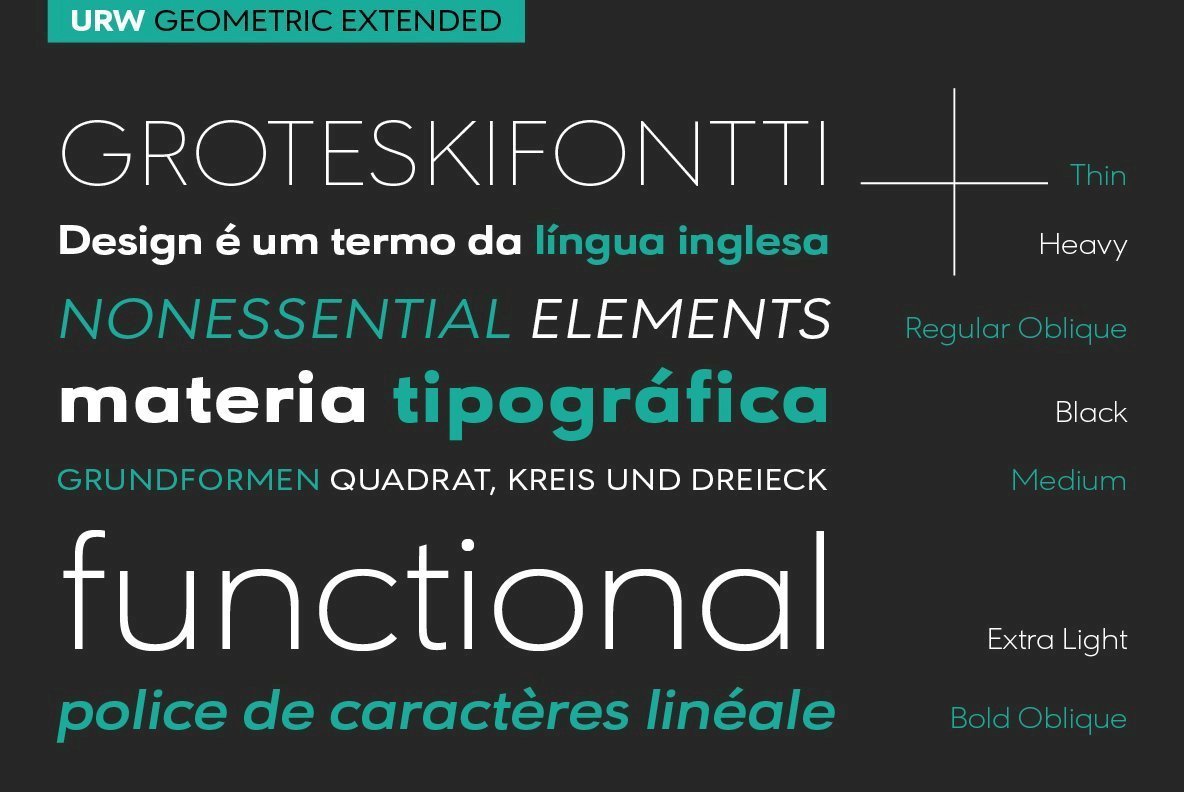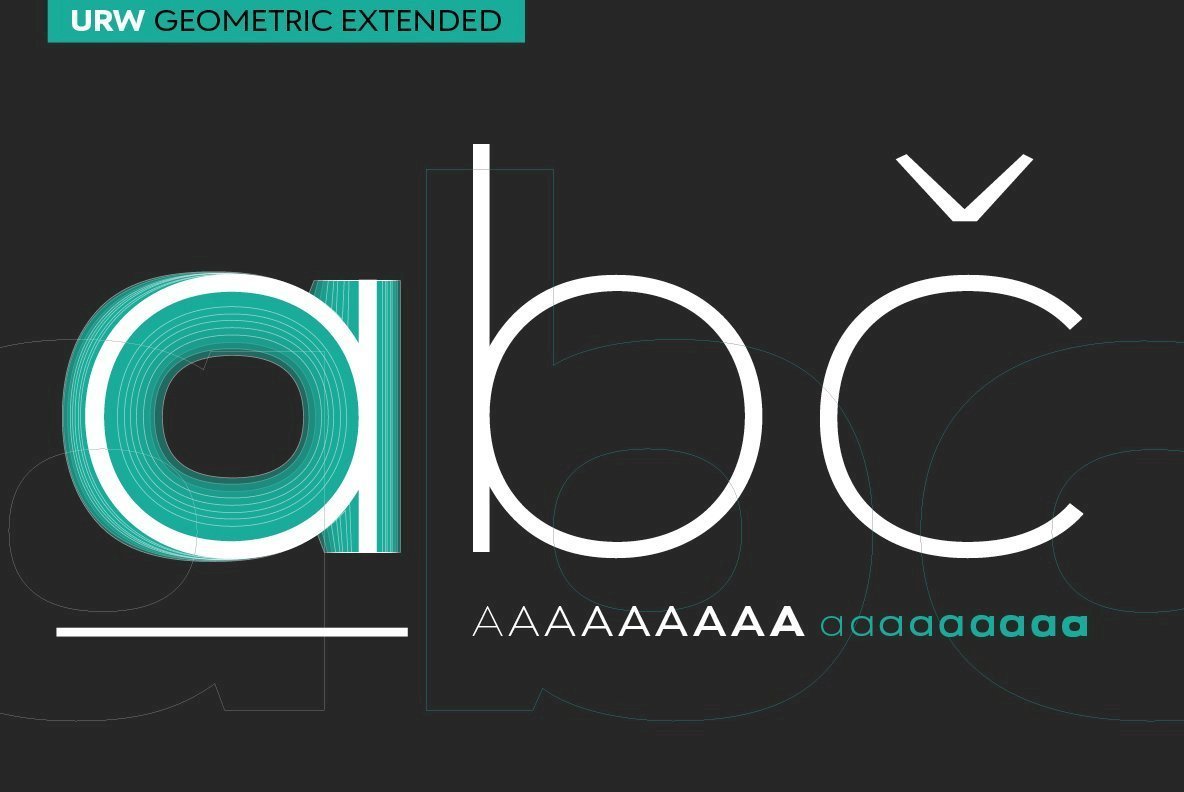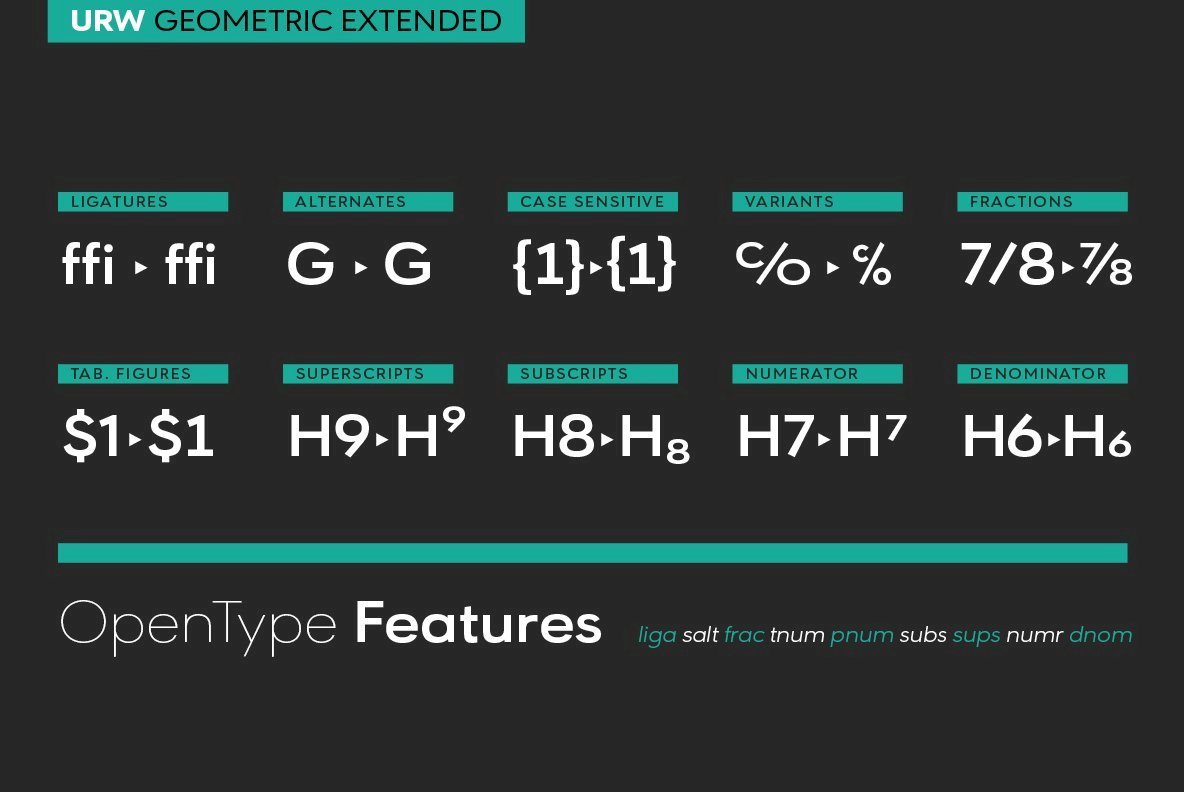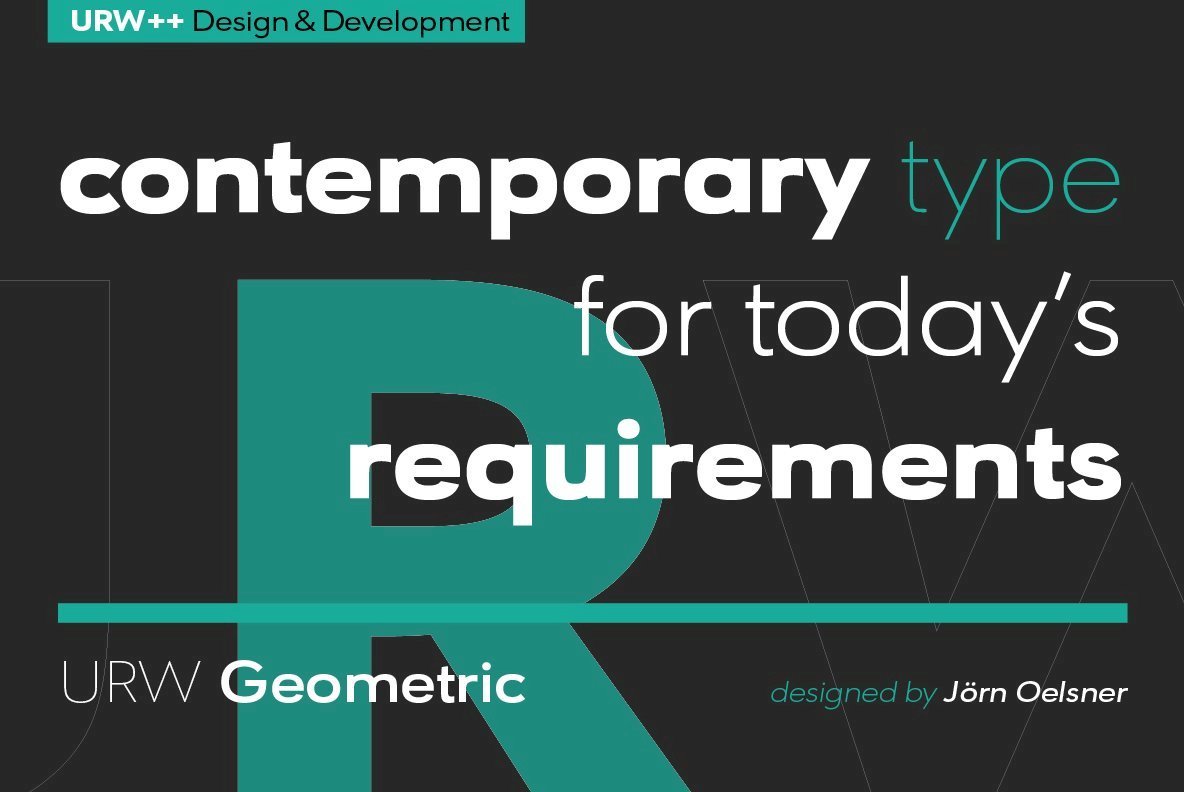
URW Geometric Extended Font
URW Geometric Extended is the matching complement for the URW Geometric, including 20 additional extended styles.
URW Geometric is a sans serif typeface inspired by the German geometric typefaces of the 1920s but designed for modern usability. The character shapes have optimized proportions and an improved balance, the x-height is increased, ascenders and descenders are decreased.
Special glyphs, which are often designed afterwards for the original geometric typefaces from the 1920s, are perfectly integrated in the URW Geometric. These design characteristics increase the usability and legibility tremendously. With its 10 weights ranging from Thin to Black, plus 10 additional oblique styles, it has a great versatility in mind. The extreme light styles shine bright in large sizes, the middle weights are perfect for body copy and the bolder variants for the use of emphasis information or bring a strong impact to headlines and information.
The optically balanced styles are designed to work in perfect harmony together. URW Geometric is functional, strong, simple and harmonized in form, and at a glance appears as a modern variant of its predecessors. Apart from the basic characters the design has an extra focus on the special glyphs.
These are designed for today’s needs. For example: the email glyph looks modern and unique, including a perfectly balanced spacing. The number sign, in modern use called “hashtag”, is space saving and optically balanced for body text. Additionally, various extra and alternate glyphs are designed to provide a friendly usability. Including a wide Latin language support and character sets, URW Geometric is perfectly designed for today’s requirements.